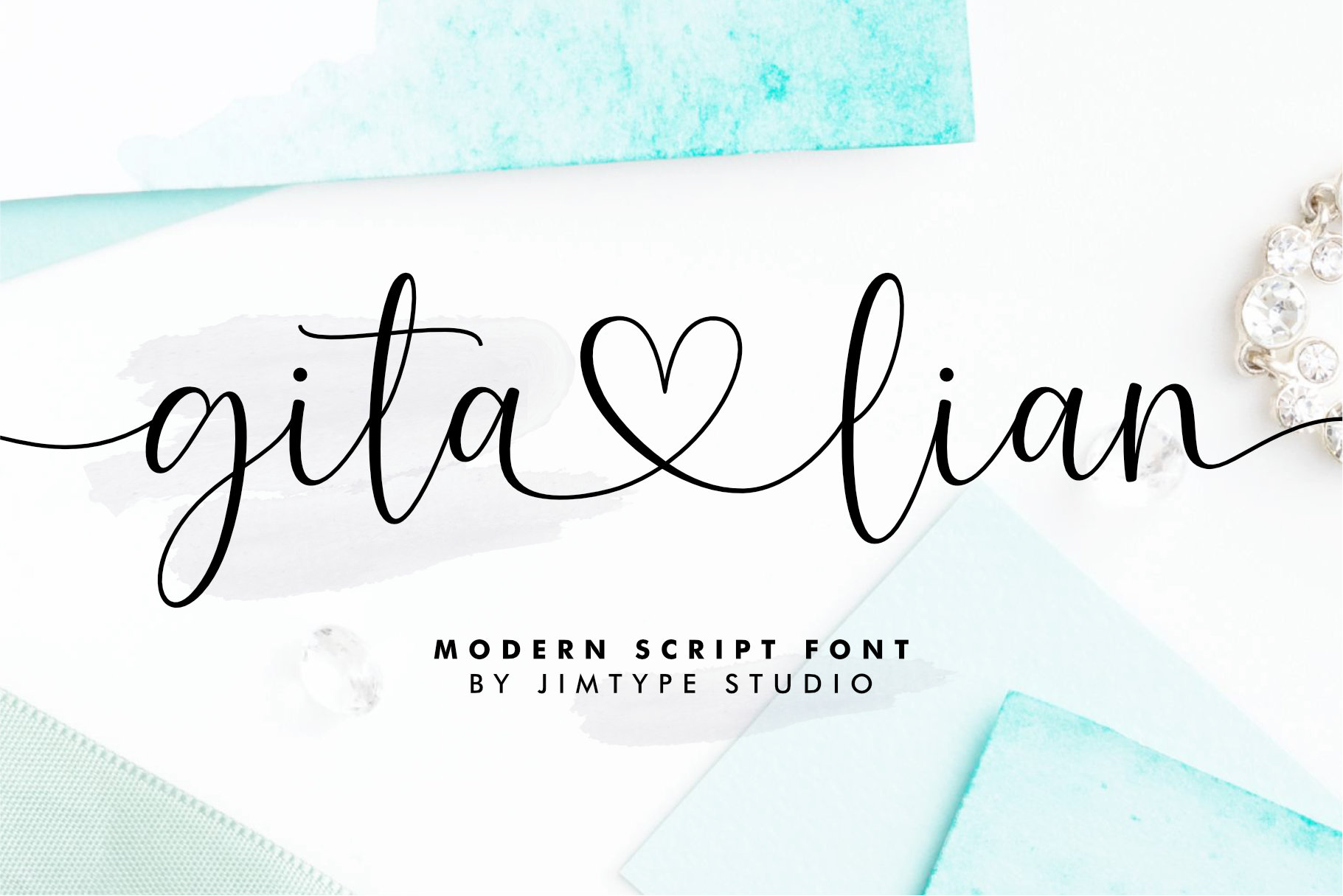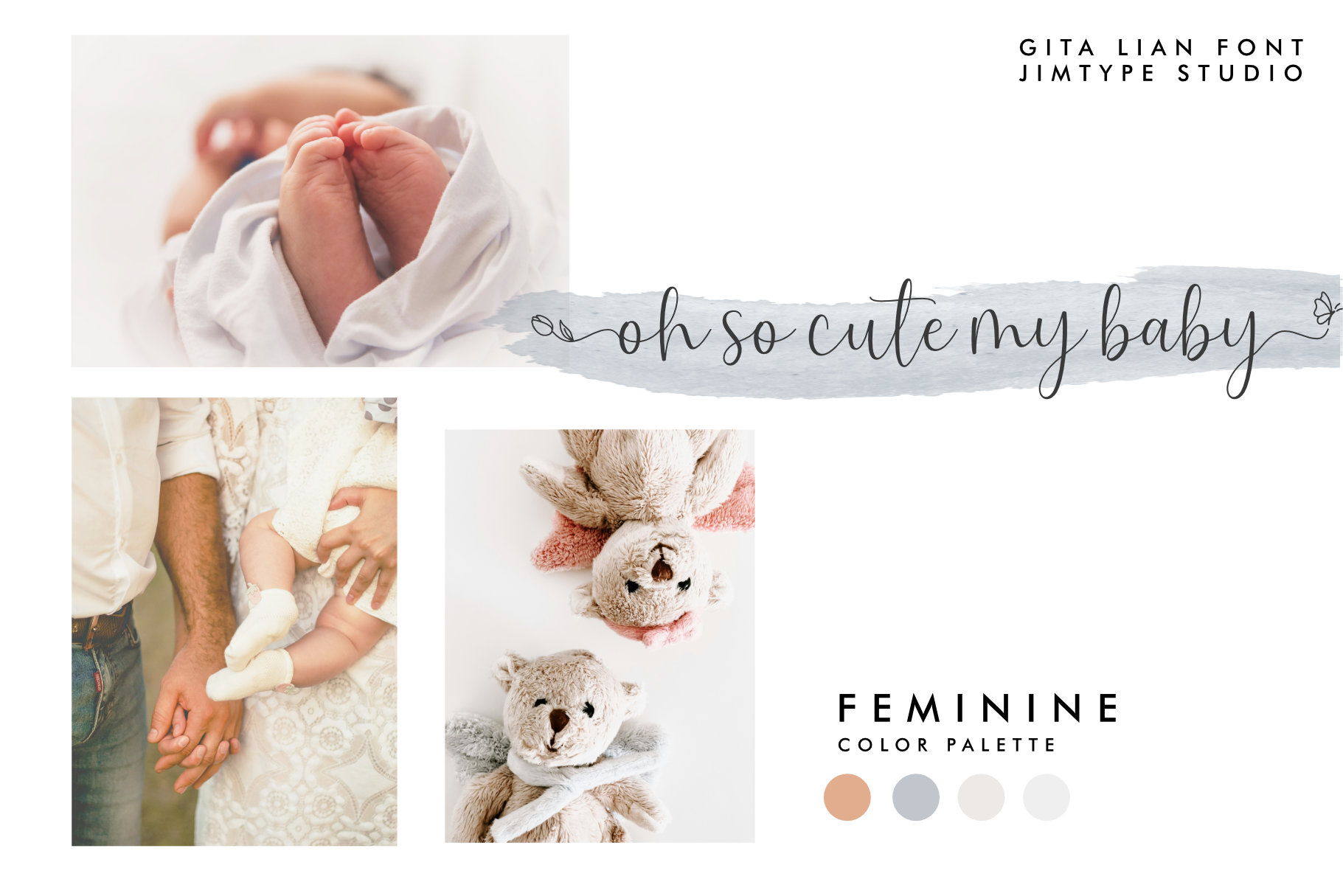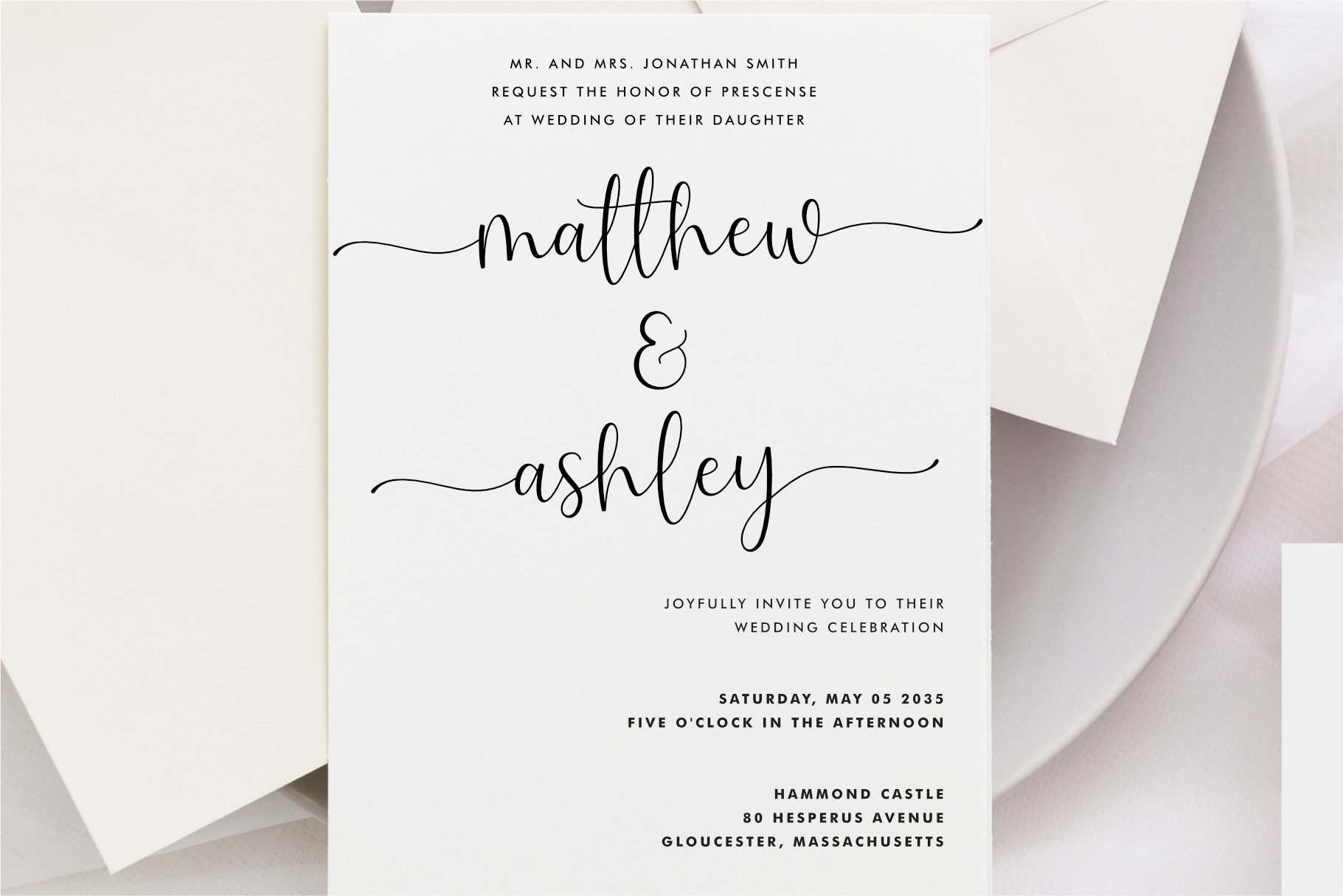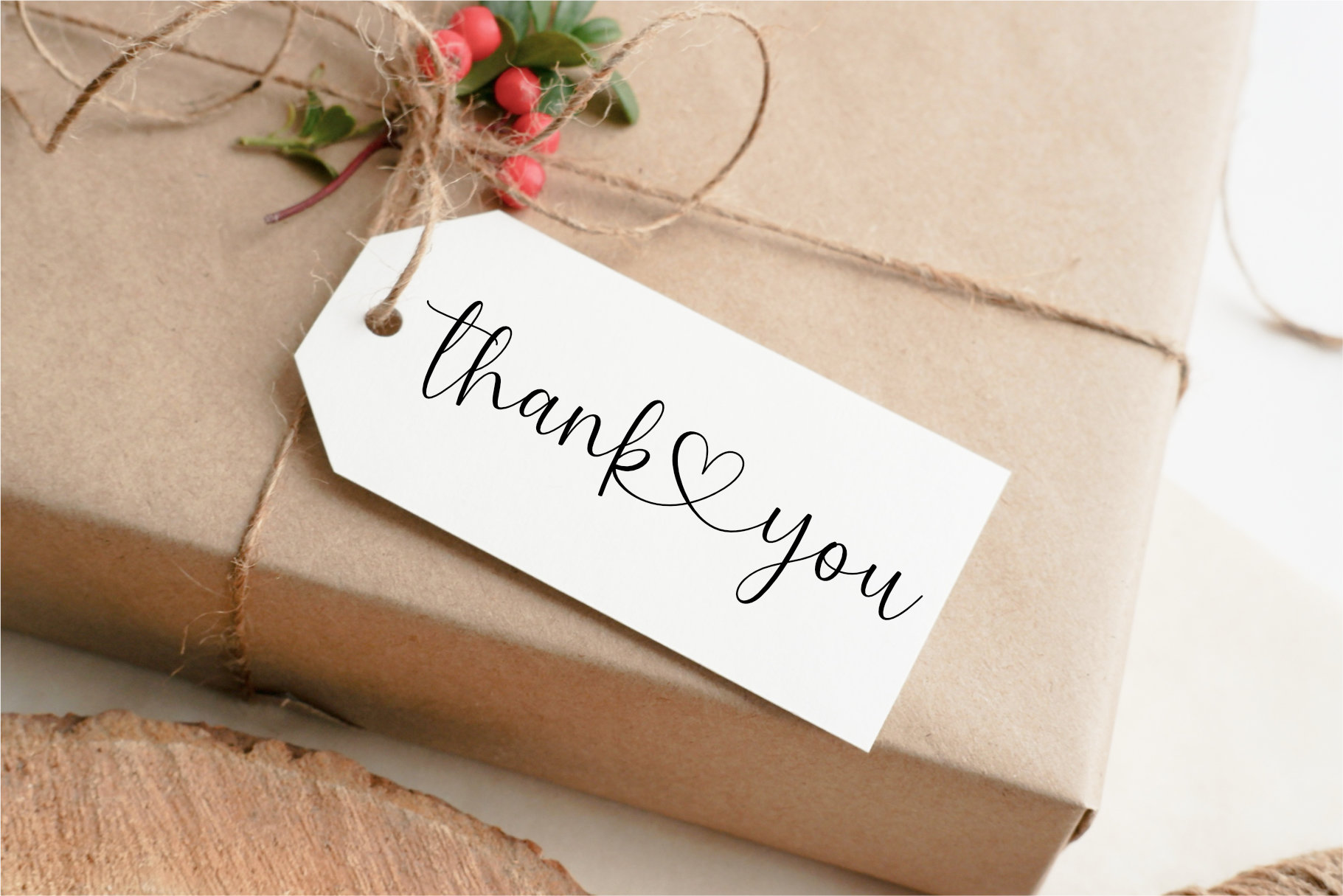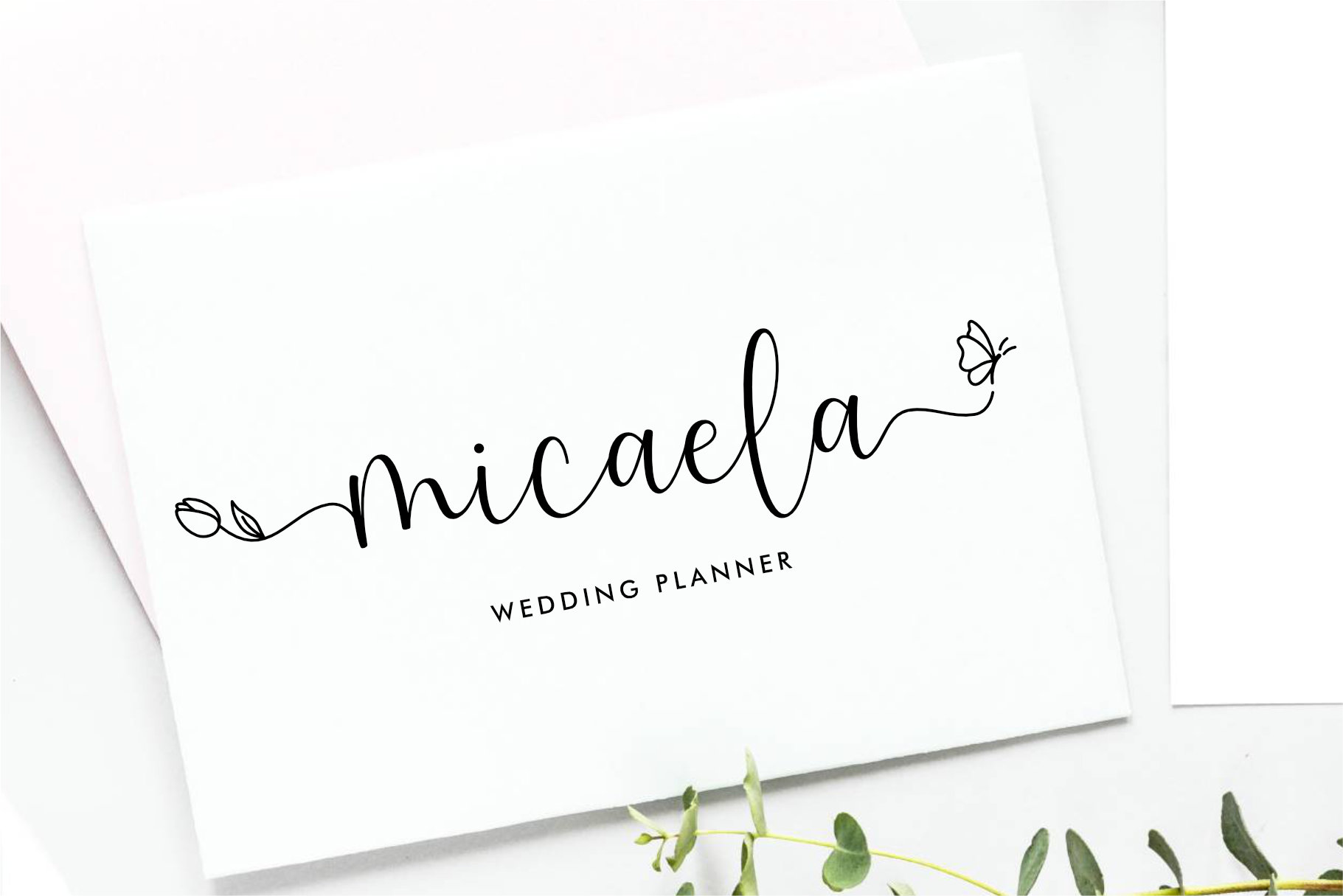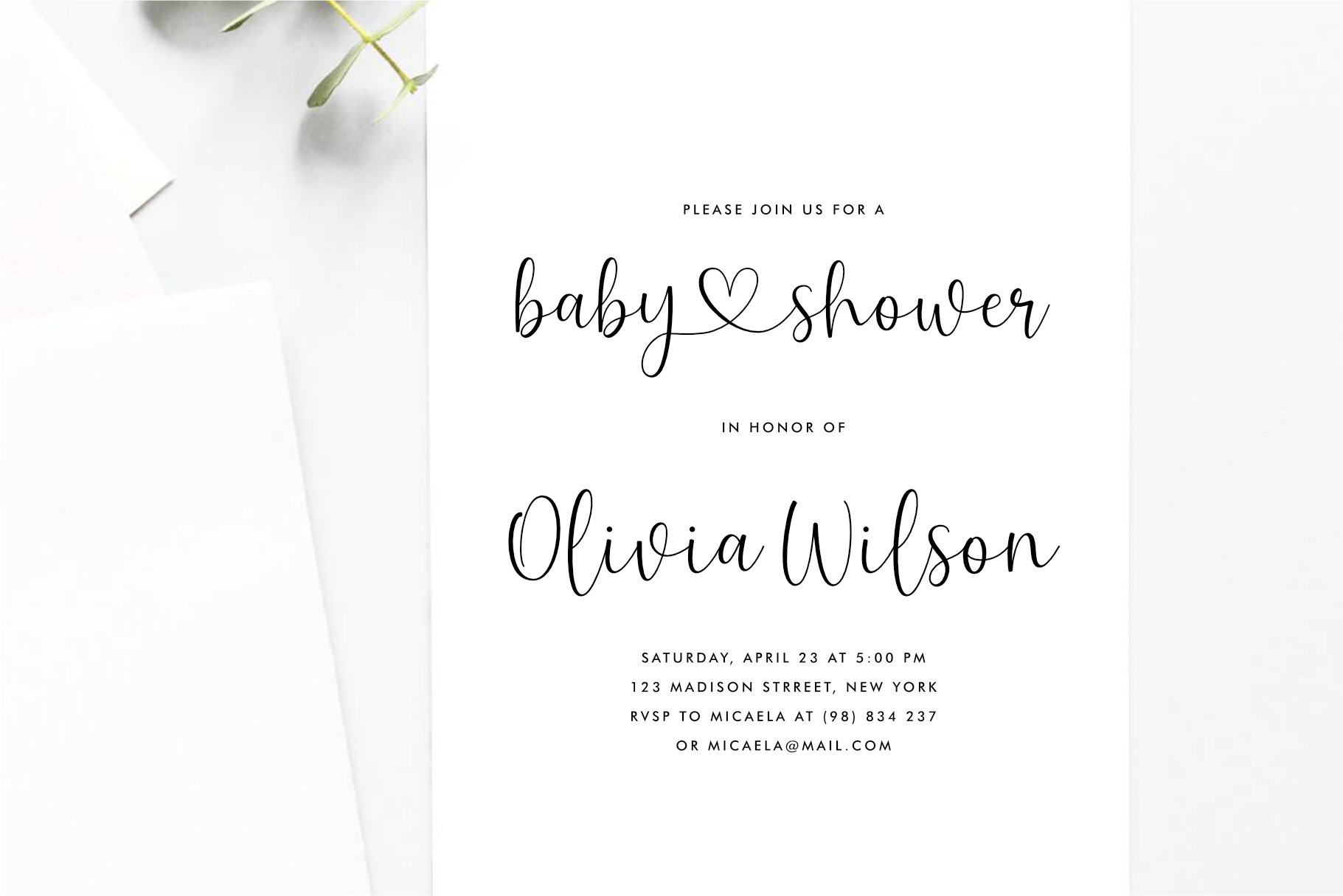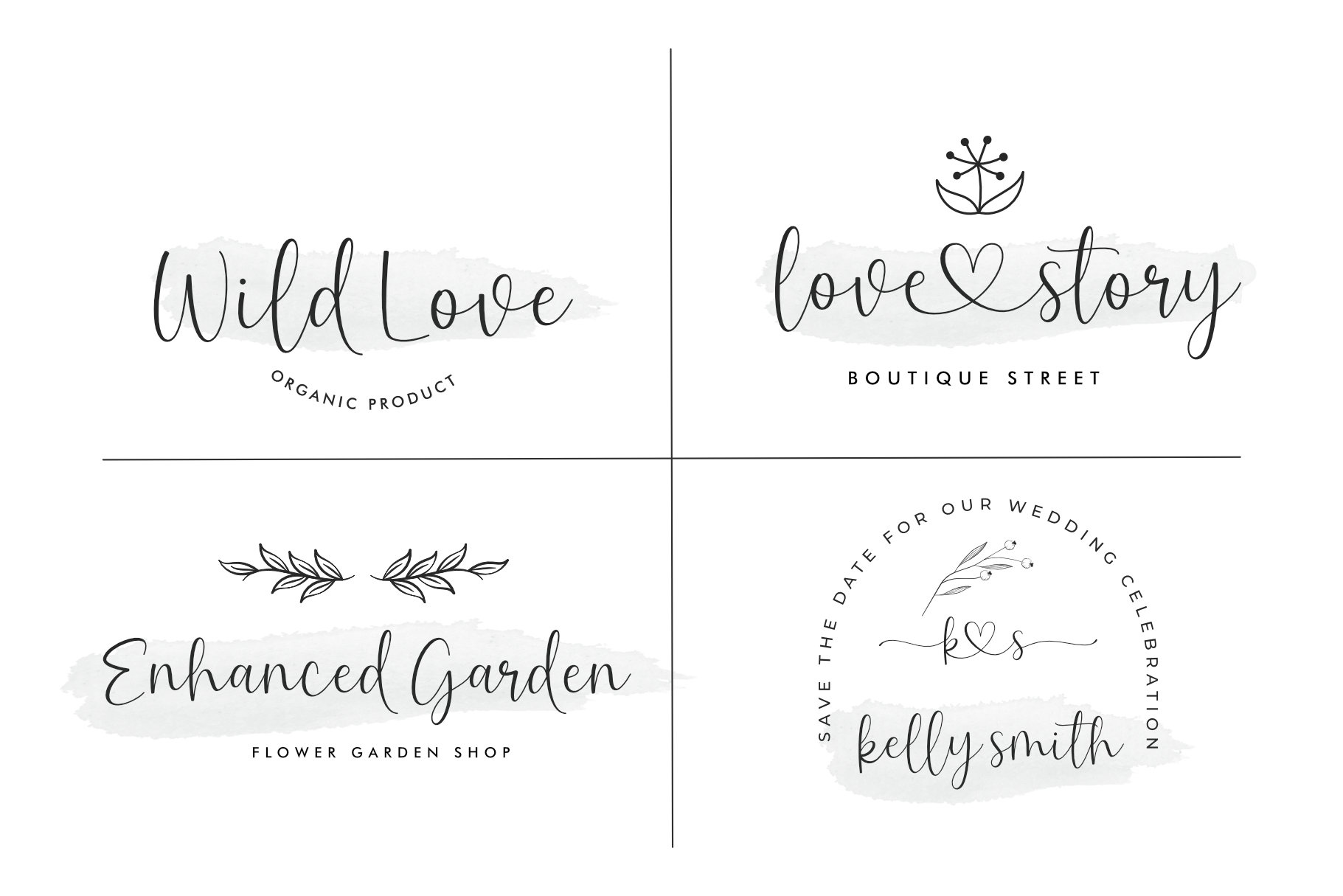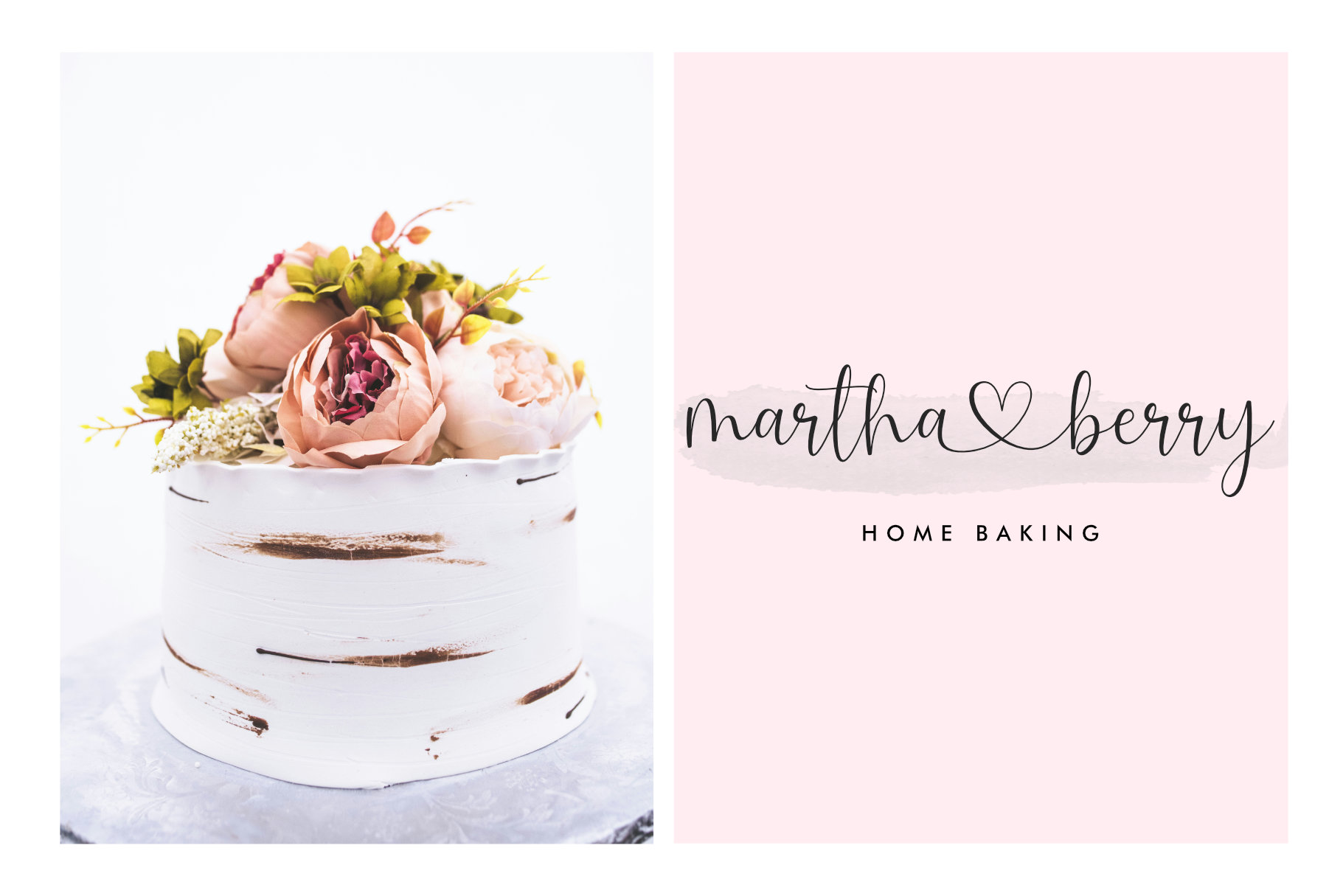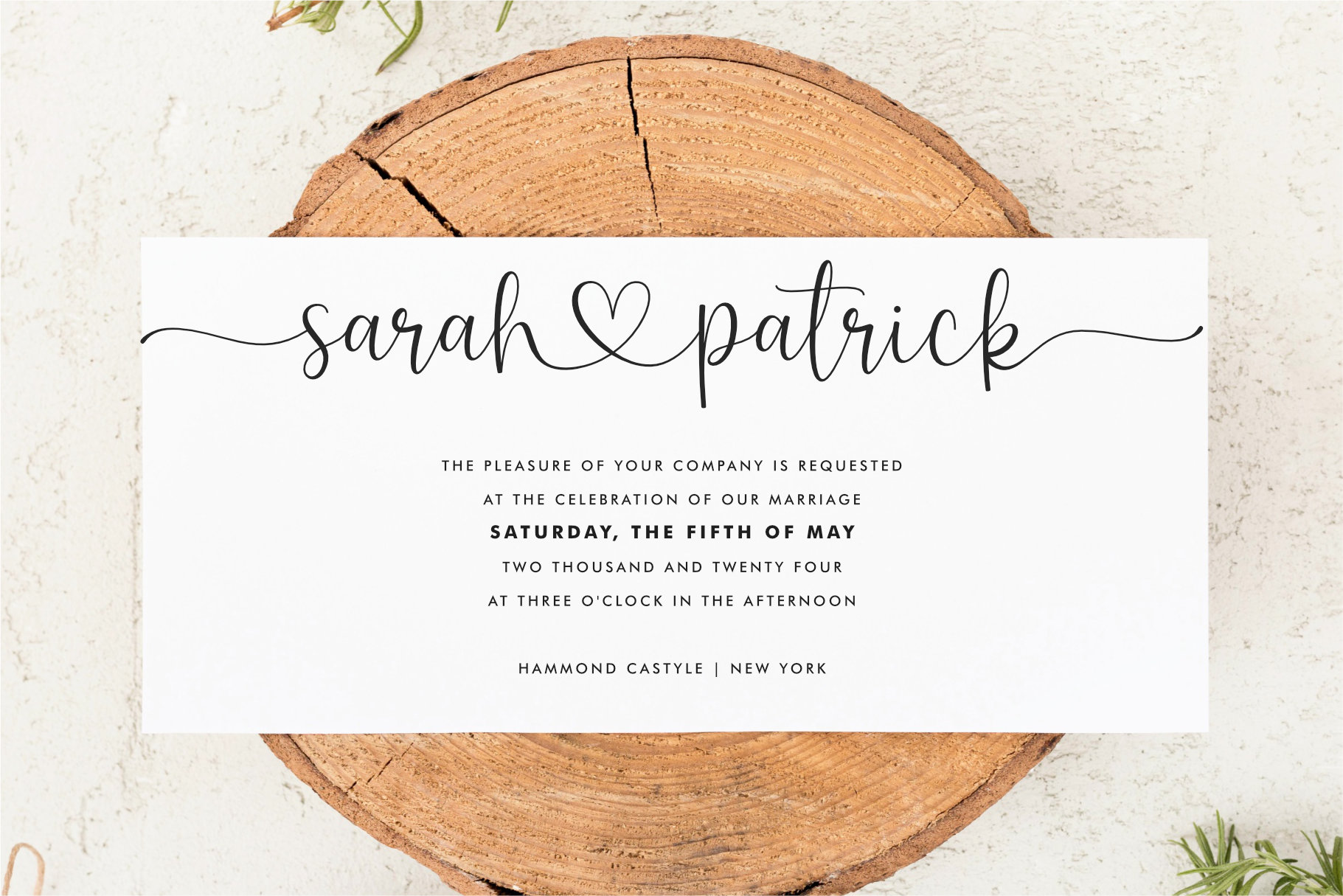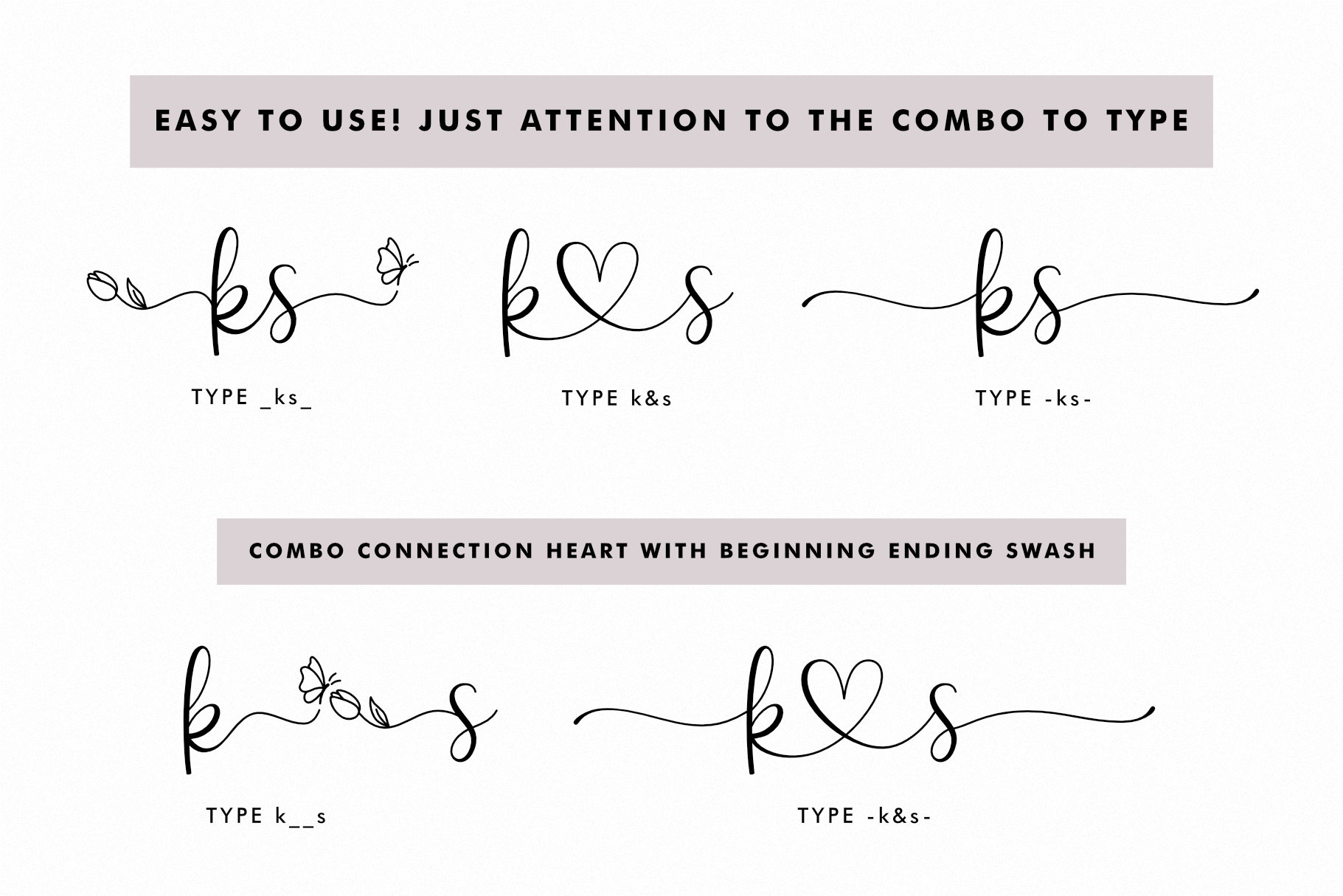
Gita Lian – Wedding Heart Font
Introducing Gita Lian Font, the ultimate choice for wedding font themes, featuring elegant script swashes and heart connections.
Gita Lian Font captures the essence of love and is your go-to solution for projects that require a blend of romance and elegance. Perfect for weddings, branding, and heartfelt designs, this font ensures your work shines with beauty and sophistication.
Use the following combos for :
lowercase heart connect
type: a& (lowercase letter ampersand)
For example: amelia&amanda
lowercase beginning and ending swash
type: -a or a- (hyphenminus lowercase letter or lowercase letter hyphenminus)
For example: -amelia- -amanda-
lowercase beginning and ending swash with heart
type: _a or a_ (underscore lowercase letter or lowercase letter underscore)
For example: _amelia_ _amanda_
You can also combine swash beginning and ending with heart connect, with a combo
For example: -amel&lia-
(hyphenminus lowercase letter ampersand lowercase letter)